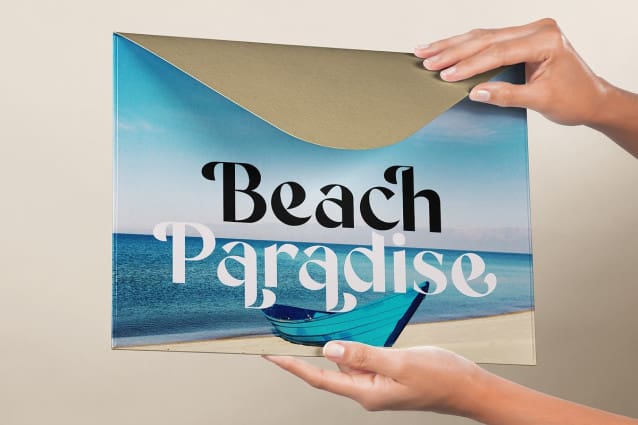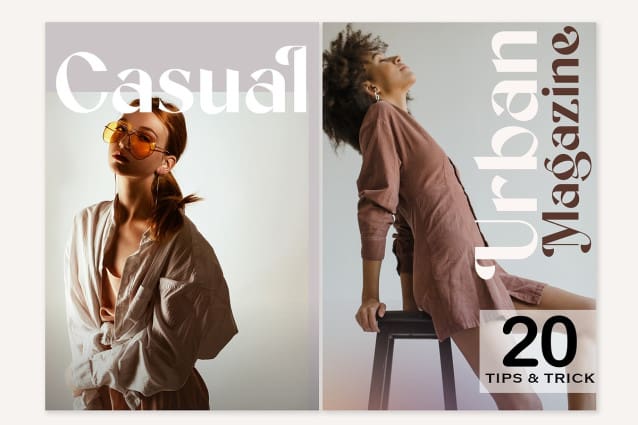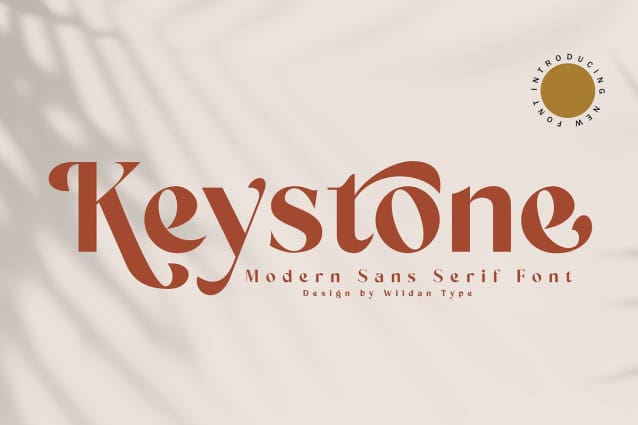
Keystone Typeface
Keystone Typeface is a modern sans serif font with a unique ligature and aletrnate style. A simple sans serif with special impression. Combaine with high contrast and slat style perfect for classy logo signs, fashion heads & editorial designs, branding projects, Clothing Branding, packaging, magazine headings, advertising, T-shirts, postcards and much more.